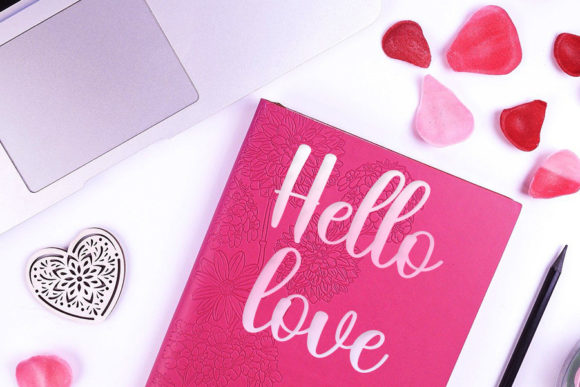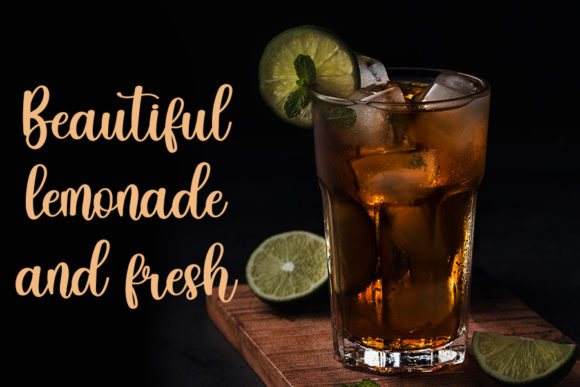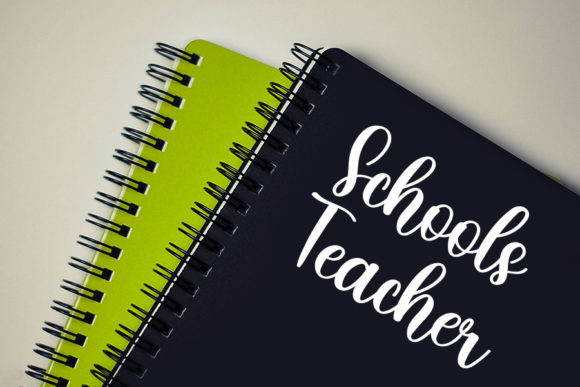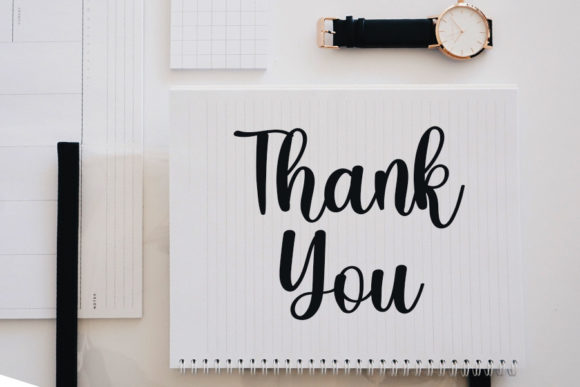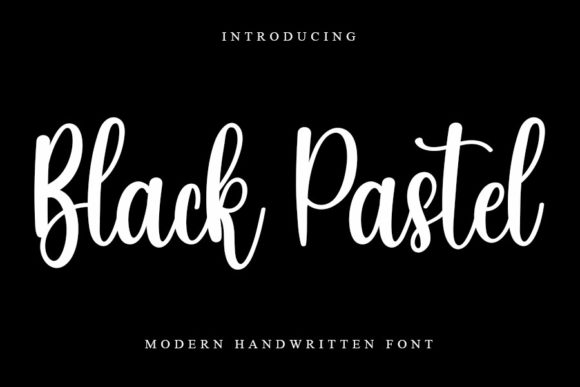
Discover the Charm of Black Pastel Font: Elevate Your Designs with Elegance
Are you on the hunt for a font that exudes both sophistication and a touch of casual flair? Look no further than the Black Pastel Font. This beautifully crafted handwritten font is designed to capture the hearts of designers and crafters alike, offering the perfect blend of classy calligraphic influences and a modern, fresh vibe.
The Essence of Black Pastel Font
Black Pastel is not just any font; it’s a carefully designed typeface that aims to become your go-to choice for a wide range of projects. Its unique charm lies in its ability to balance elegance with a laid-back feel, making it incredibly versatile. Whether you’re working on a branding project, crafting a beautiful wedding invitation, or creating engaging social media content, Black Pastel Font is sure to make your designs stand out.
Key Features of Black Pastel Font
- Handwritten with Love: Black Pastel boasts a handwritten quality that gives it a personal and intimate feel. Each letter is crafted with care, ensuring that your designs have that special touch.
- Classy Calligraphic Influences: The font doesn’t shy away from its calligraphic roots, offering a level of sophistication that’s hard to find in more casual typefaces.
- Contemporary and Fresh: Despite its classic influences, Black Pastel feels undeniably modern. It’s the perfect choice for designers looking to infuse their work with a bit of contemporary flair.
- Versatility at Its Best: From digital platforms to print materials, Black Pastel Font adapts seamlessly, making it a valuable addition to any designer’s toolkit.
Why Fall in Love with Black Pastel Font?
So, what makes Black Pastel Font so special? For starters, its unique blend of formality and casualness makes it incredibly versatile. It’s a font that can effortlessly move from a luxury brand’s logo to a blogger’s social media posts, always looking right at home. Additionally, its readability and flowing style ensure that your message is conveyed with elegance and clarity.
Using Black Pastel Font in Your Projects
Incorporating Black Pastel Font into your designs is a straightforward process that can elevate your work in significant ways. Here are a few ideas to get you started:
- Branding: Use Black Pastel Font for your brand’s logo or as part of your overall visual identity to add a touch of elegance.
- Wedding and Event Planning: Create stunning invitations, menus, and decor with this beautiful font, adding a personal touch to your clients’ special days.
- Digital Content: Stand out on social media and blogs with eye-catching headings and quotes that showcase your personality.
Tips for Maximizing the Impact of Black Pastel Font
To get the most out of Black Pastel Font, consider the following tips:
- Pair it Wisely: Combine Black Pastel with simpler fonts for body text to create visual interest and ensure readability.
- Experiment with Colors: While the font itself is black, experimenting with different colors can help you find the perfect match for your brand or design.
- Play with Sizes: Don’t be afraid to vary the font size to create a hierarchy of information and add depth to your designs.
Black Pastel Font is more than just a typeface; it’s a design companion that can help you bring your creative visions to life. Its unique blend of elegance and casual charm makes it the perfect choice for designers and crafters looking to add a touch of sophistication to their work. So why wait? Fall in love with Black Pastel Font and take your designs to new heights!